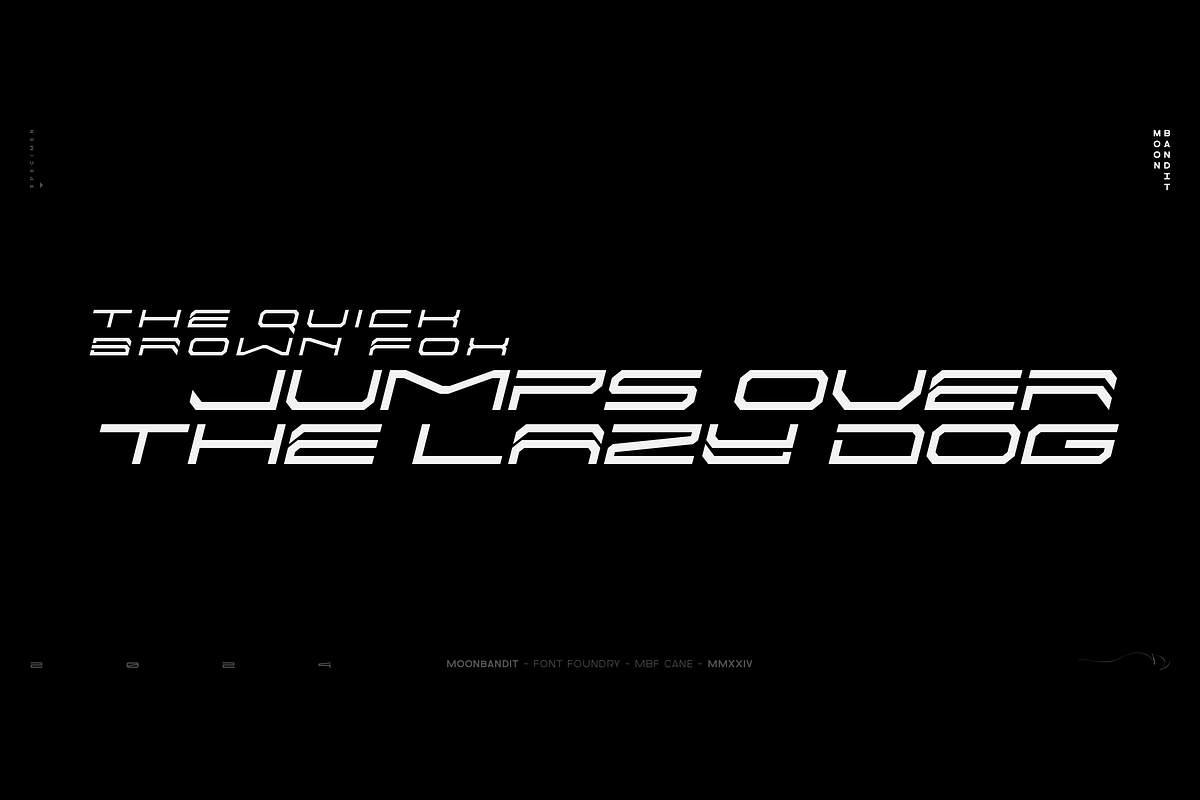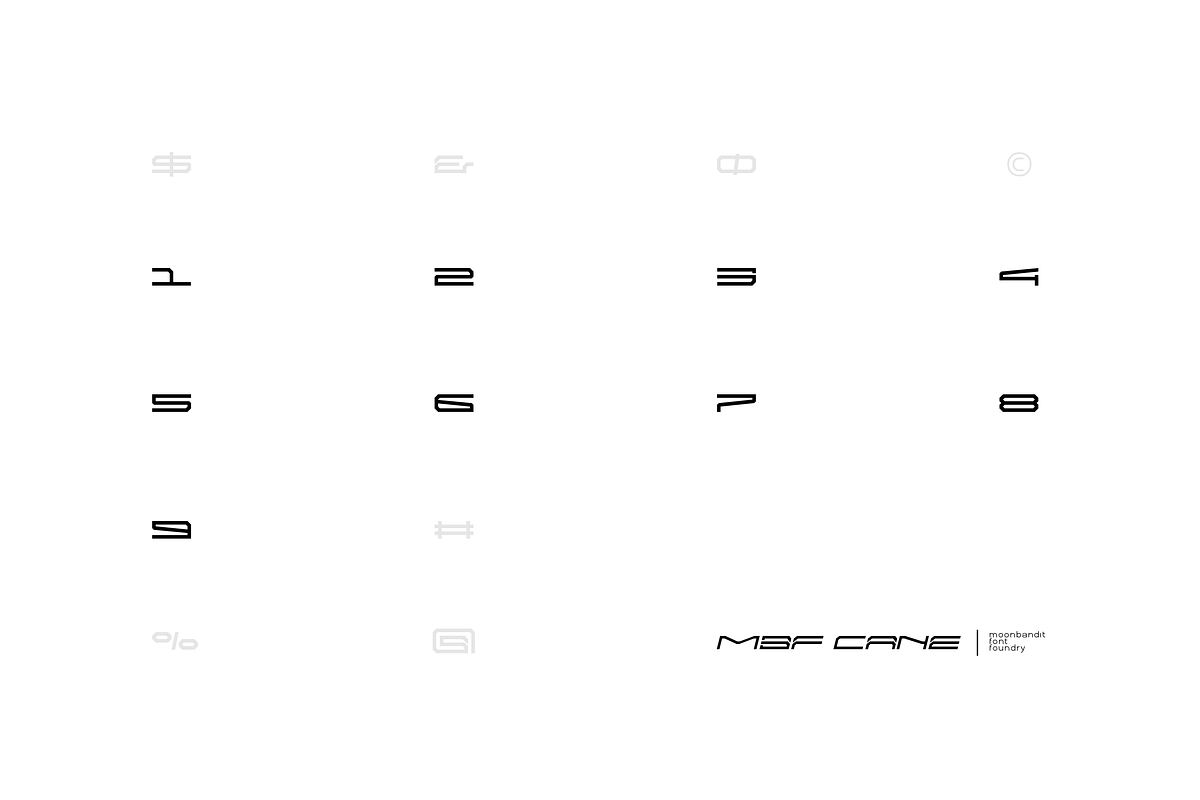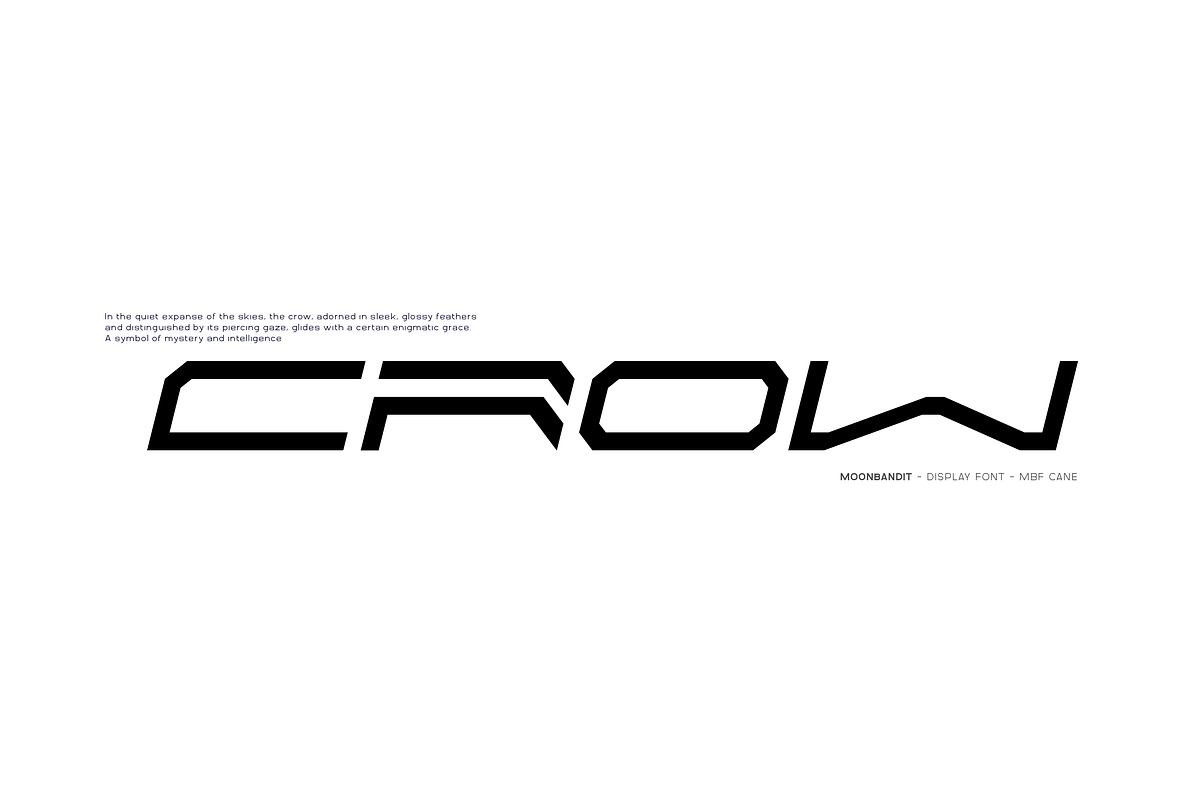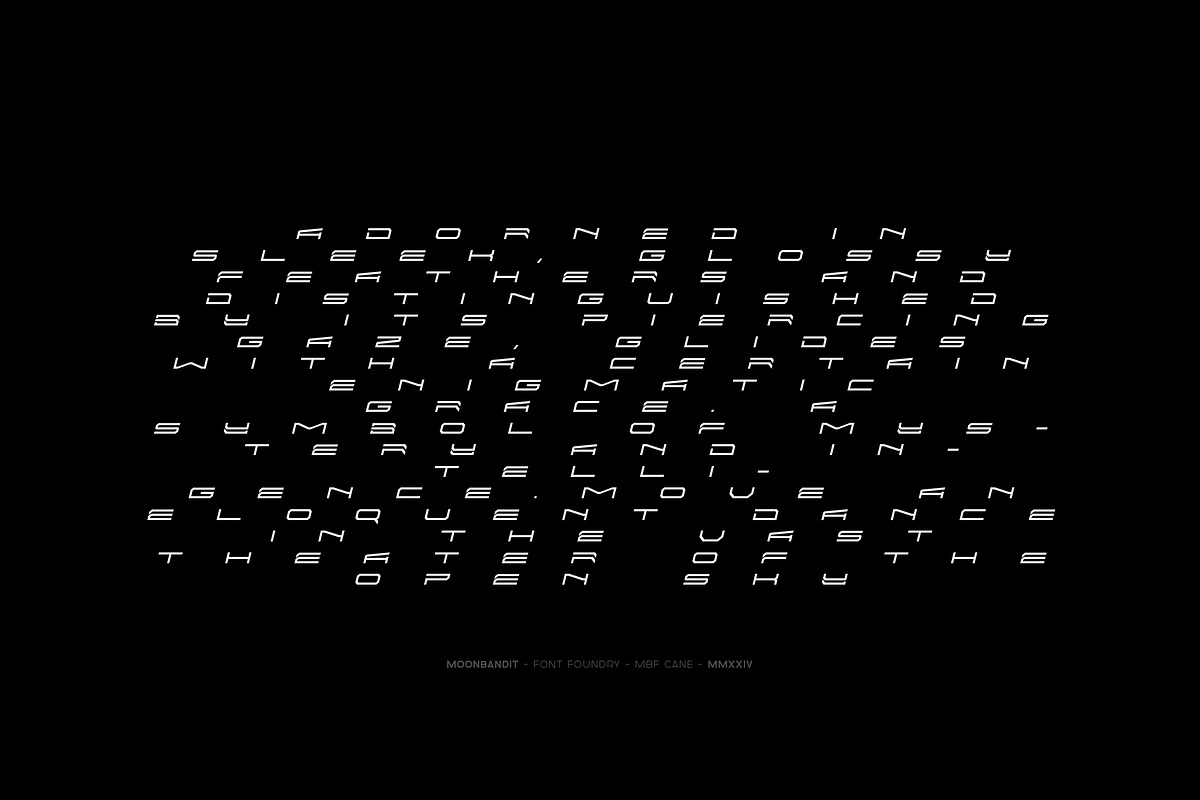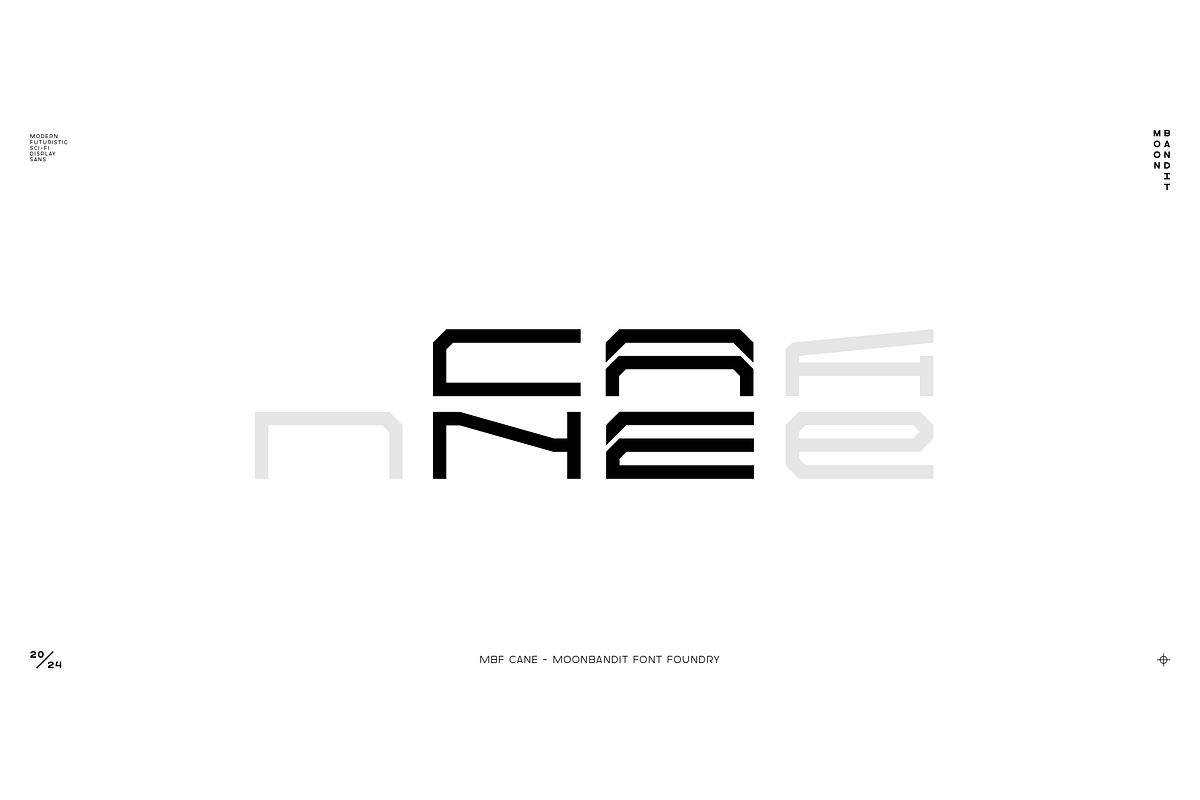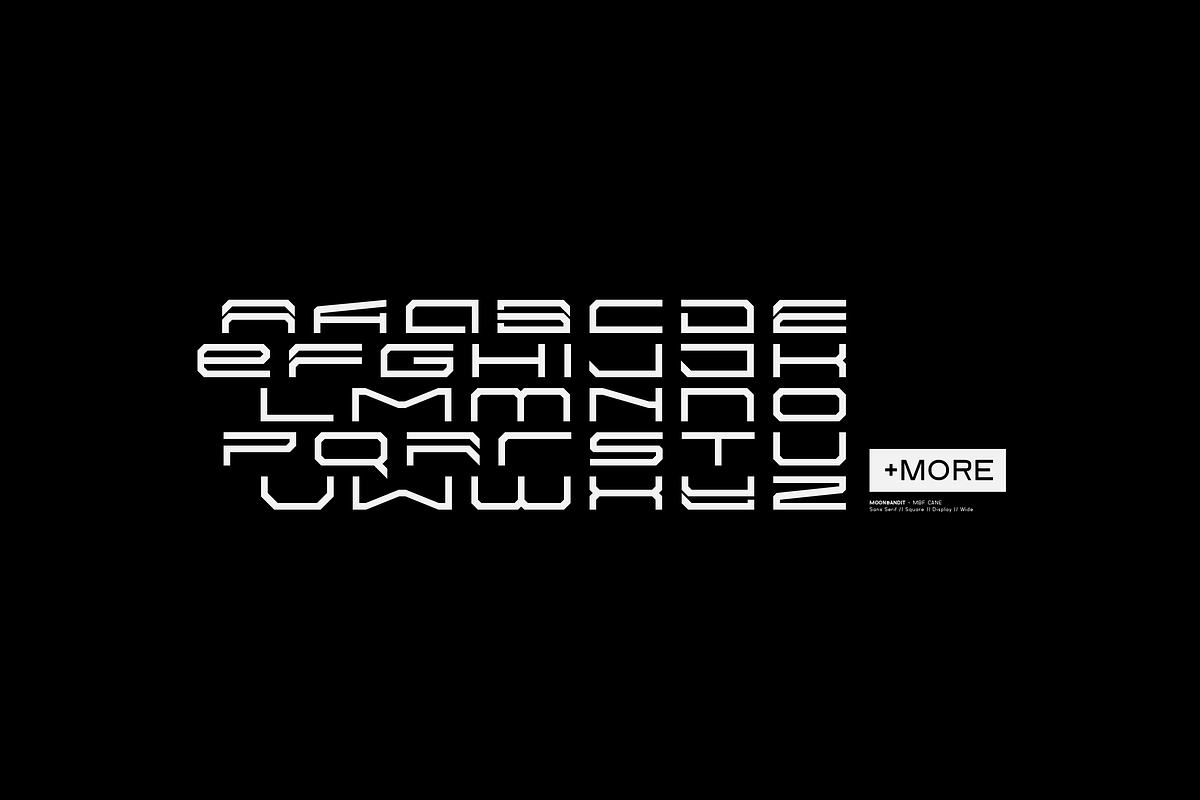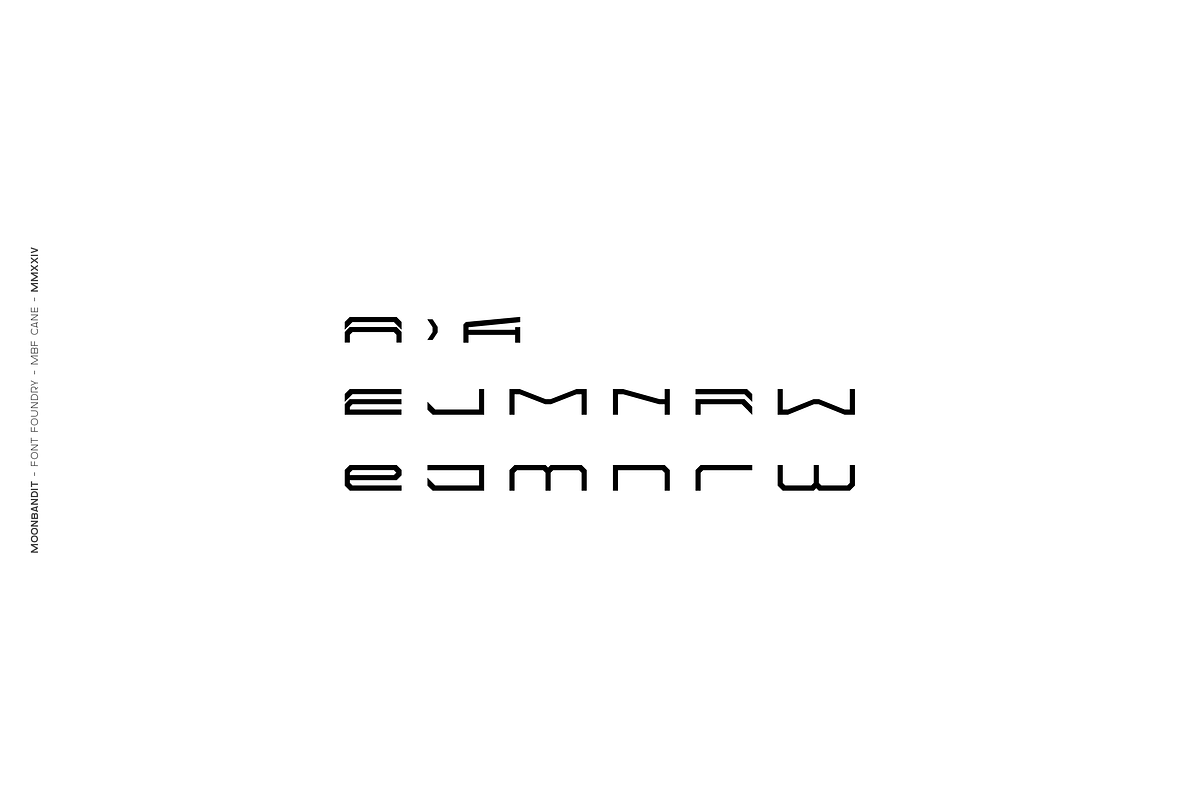
MBF Cane
Introducing MBF Cane, a revolutionary typeface meticulously crafted for those who dare to be bold. With its futuristic sci-fi theme and striking wide design, MBF Cane becomes the quintessential choice for commanding big displays, impactful titling, memorable logos, and arresting poster designs. Breaking free from tradition, MBF Cane heralds a new era in visual communication, transforming every character into a statement and each display into a bold embodiment of innovation. Elevate your designs to unprecedented heights with MBF Cane—where the future seamlessly converges with typography.